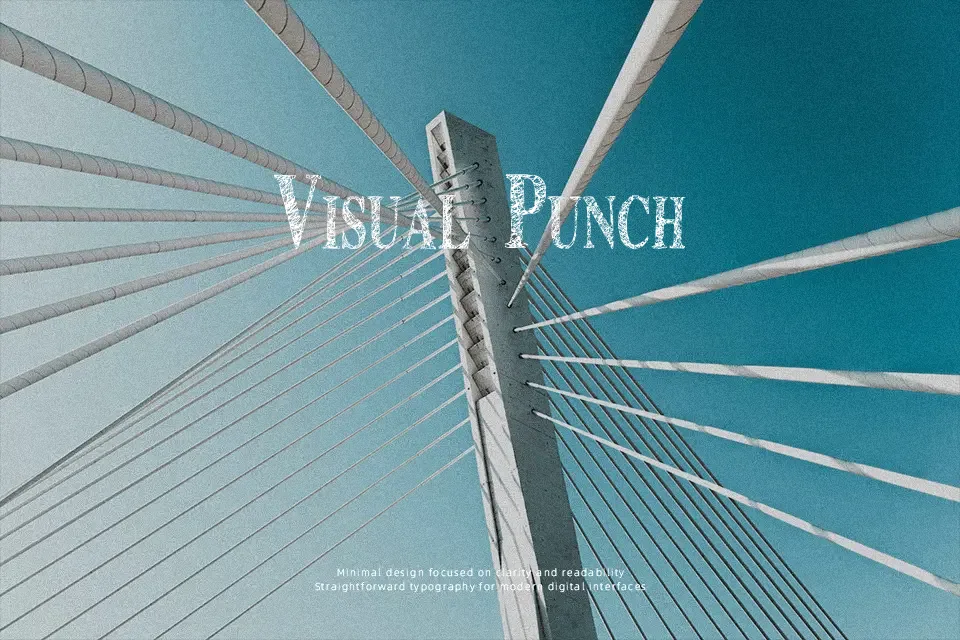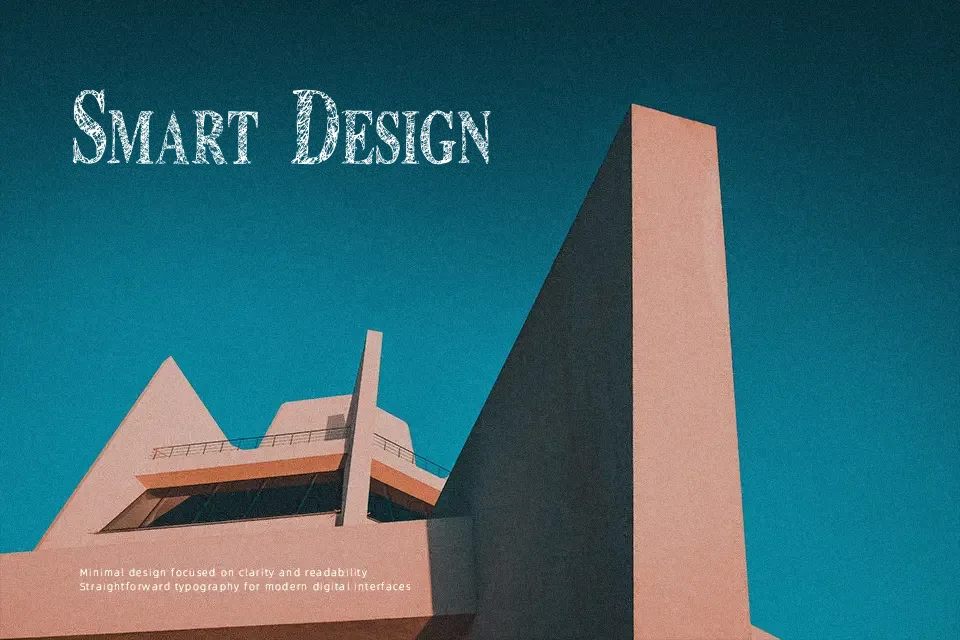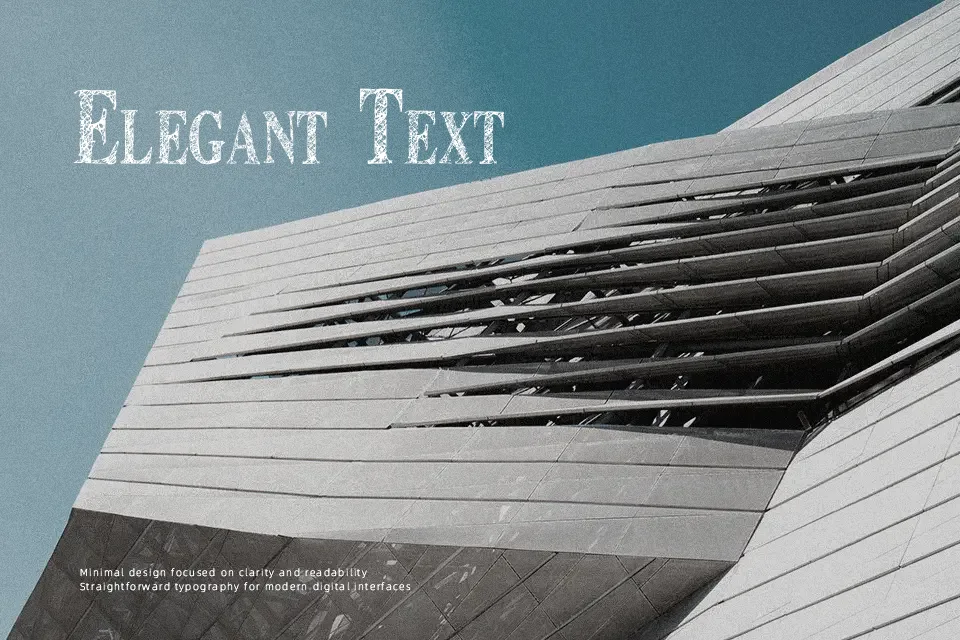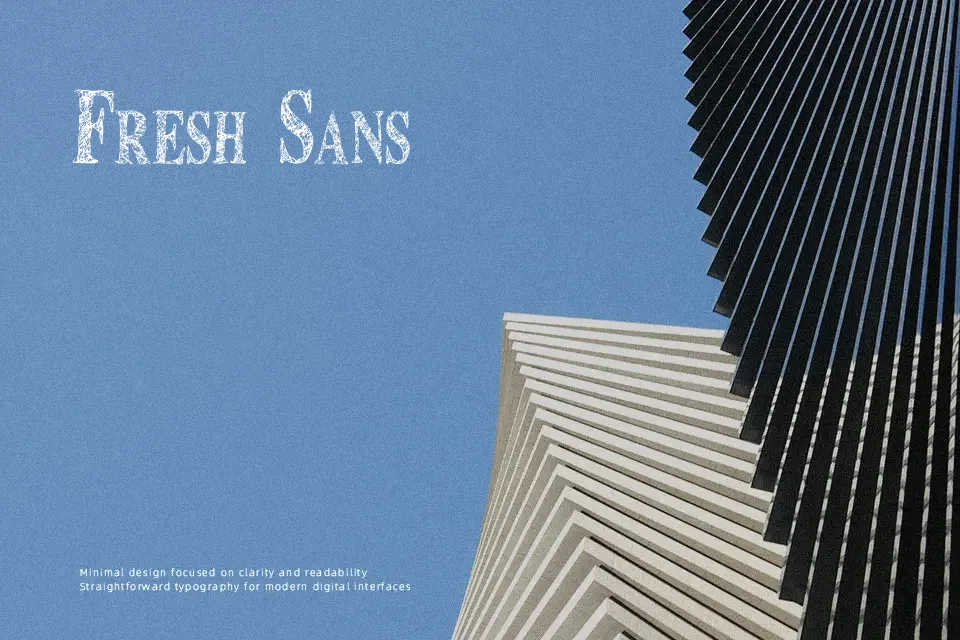
Time To Scribble Font
Designed by Bonez Designz
Time To Scribble Font features an informal hand-drawn structure built from rapid, overlapping sketch strokes that give every character an active and textured appearance. The letterforms display varied stroke weight and energetic contour lines, paired with somewhat irregular proportions that reinforce a spontaneous drafting aesthetic. Spacing between characters is loose enough to prevent dense collisions, yet the erratic outlines mean readability diminishes rapidly below display scales. The typeface functions convincingly across music gig posters, illustrated apparel graphics, and casual zine titles. However, the heavy hatching and irregular shapes make this design unsuitable for extended body text, where dense paragraphs become strenuous to parse. The raw scribbled strokes deliver immediate visual interest when showcased at generous sizes.
Best For: music festival posters, indie album covers, streetwear graphics
Not Ideal For: long paragraph text, corporate annual reports, small mobile navigation labels
Perfect for branding, headline, and packaging, with a artistic and decorative style.